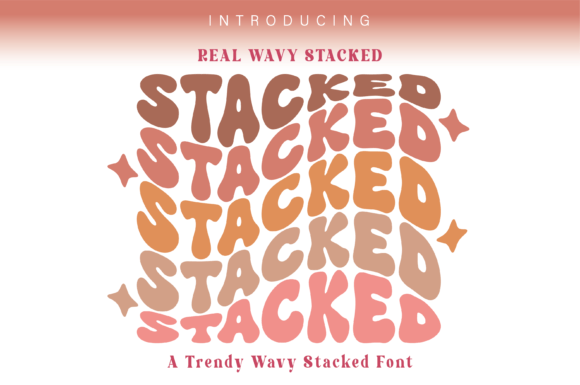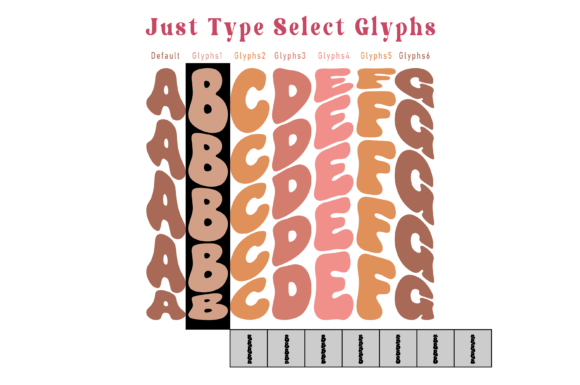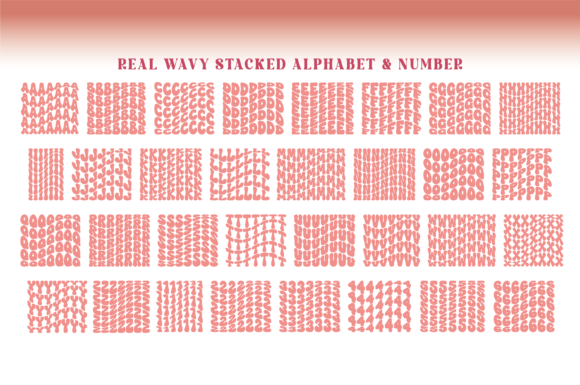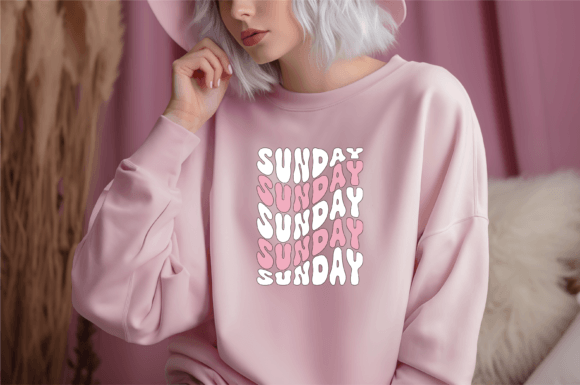
Real Wavy Stacked Font
About the Real Wavy Stacked Font
Explore the possibilities with Real Wavy Stacked Font, a font that offers both beauty and functionality. Real Wavy Stacked is Groovy font style in stacked effect. It’s have 7 glyphe to help you create trendy text design. Many design can create by yourself. Fun and perfect for everyone.
Real Wavy Stacked’s playful, energetic style is ideal for headlines, short taglines, and branding elements where a bold, eye-catching aesthetic is desired. It works exceptionally well in posters, social media graphics, and packaging for products targeting a young, vibrant audience. However, its stacked nature and limited glyph count make it unsuitable for body text or lengthy paragraphs; readability suffers at smaller sizes.
This font’s informal and fun personality pairs well with clean sans-serif fonts like Open Sans or Montserrat for a balanced contrast. For a more retro vibe, consider pairing it with a geometric sans-serif such as Futura or a classic serif like Garamond. Avoid pairing it with other highly decorative or script fonts, which would create visual clutter.
Its inherent playfulness makes it a great choice for brands focused on fun, creativity, or youth culture – think clothing lines, festival promotions, or children’s products. The limited glyph set should be considered when planning usage, ensuring its unique qualities are highlighted rather than constrained.
Real Wavy Stacked Font Usage Examples
Real Wavy Stacked Font Example